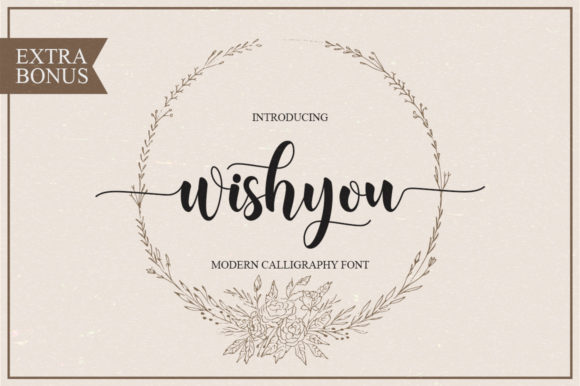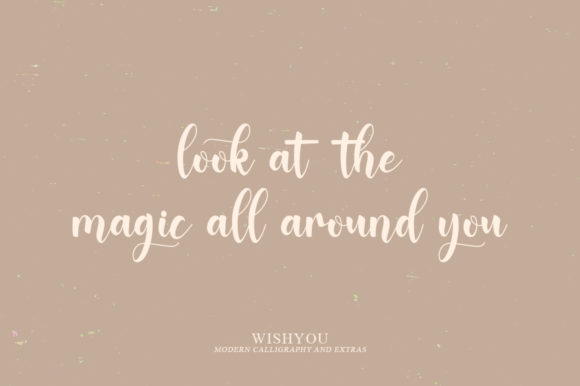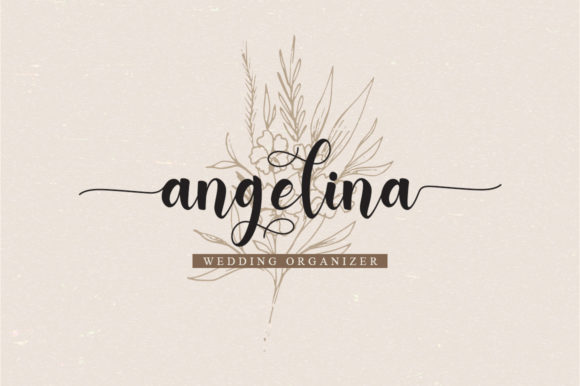
About Wishyou Font
Wishyou is an elegant and flowing handwritten font. This font is PUA encoded which means you can access all of the glyphs and swashes with ease!
Dainty and joyful, this font will be ideal for writing wedding invitations, cards or any other design that may need a romantic, personalized touch!